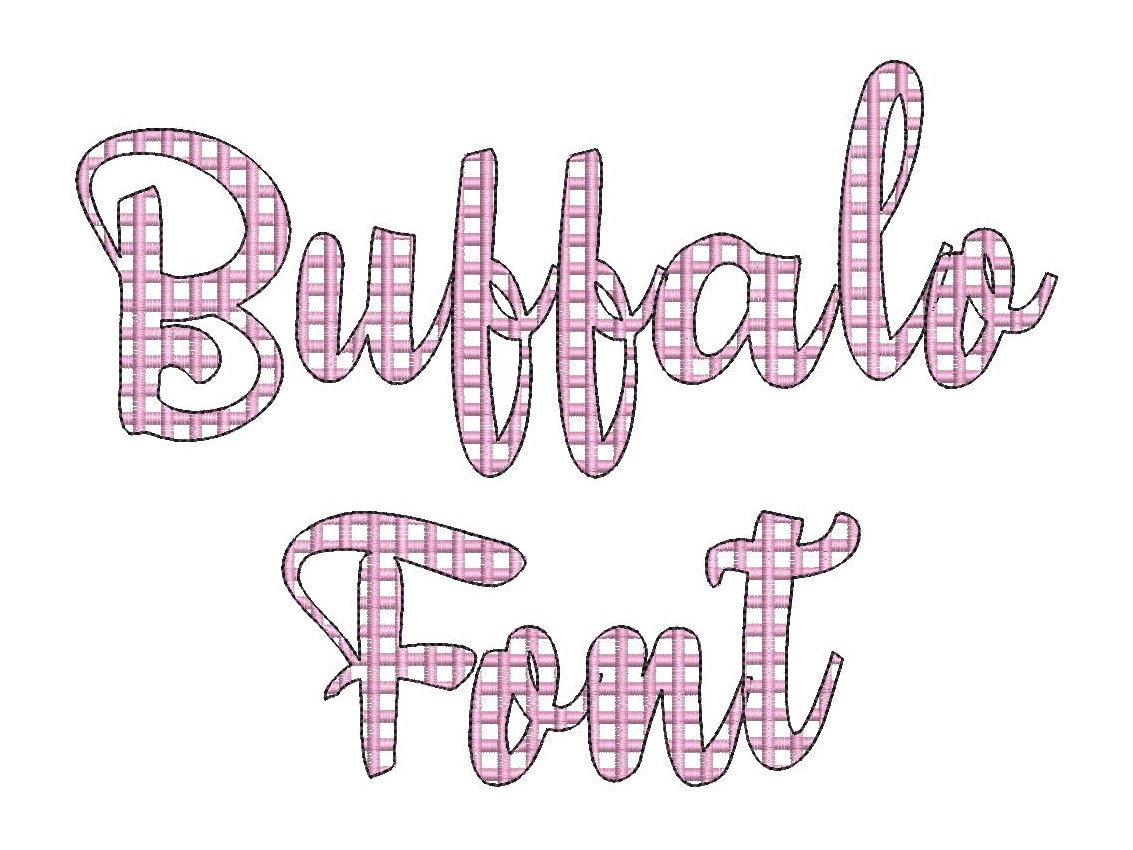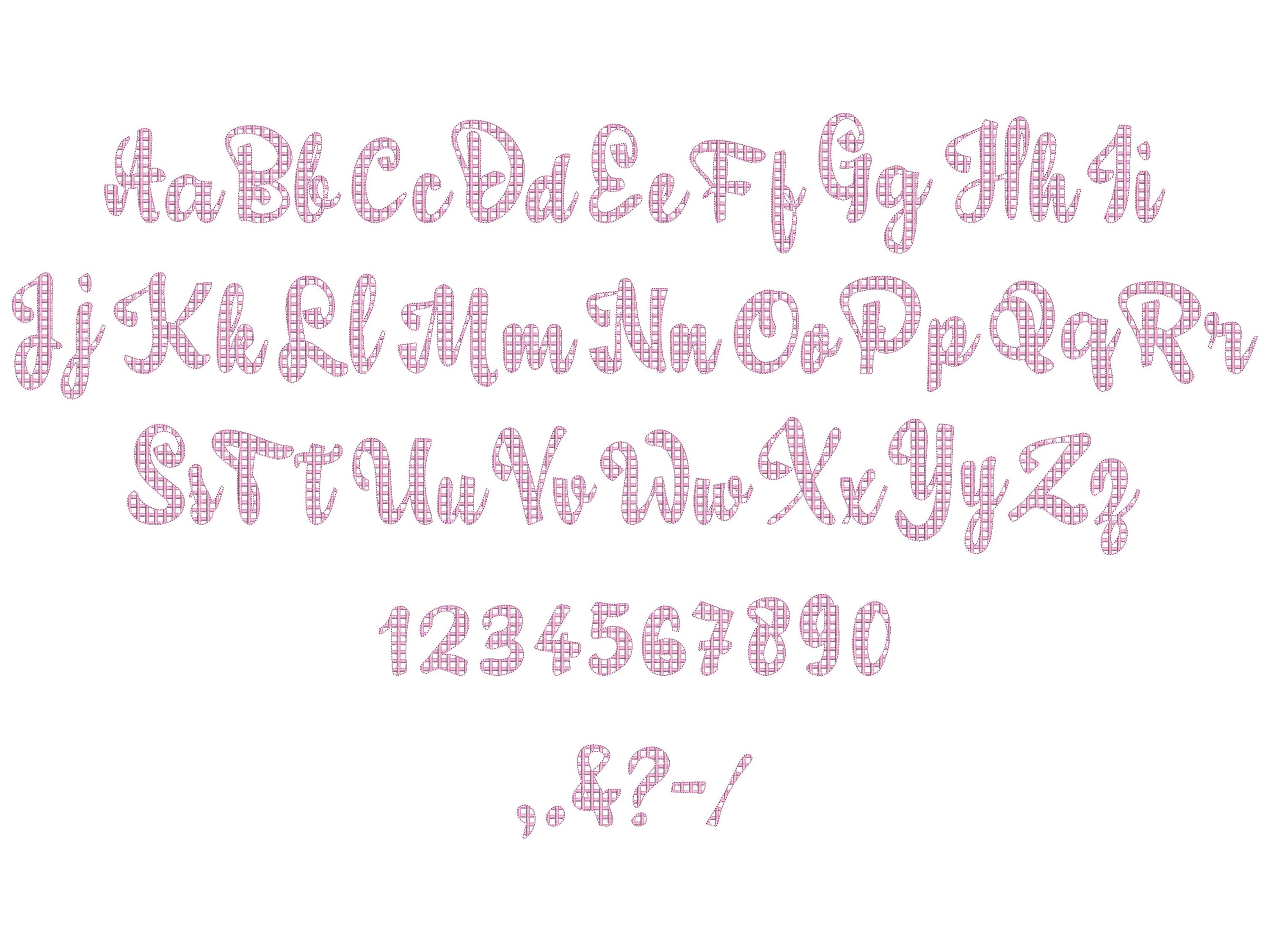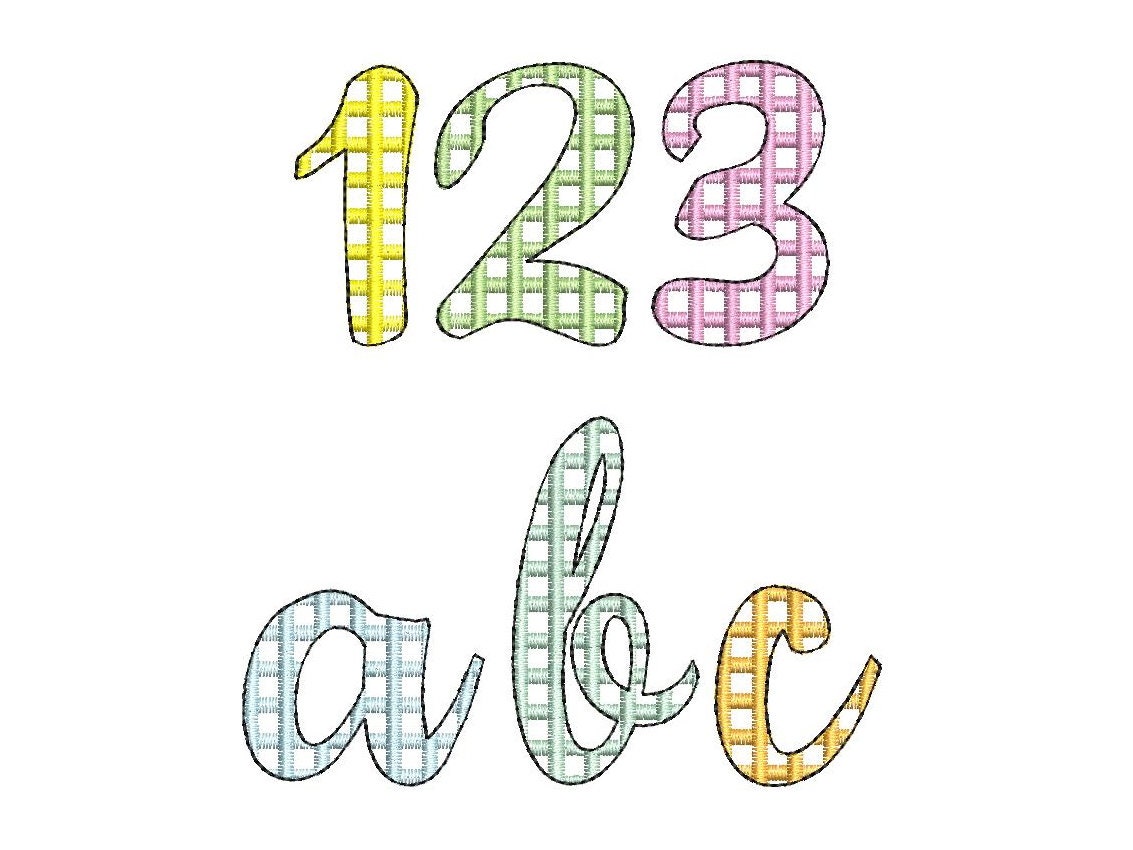
Buffalo Font in checks plaid script alphabet machine embroidery designs in assorted sizes BX, PES, VIP, jef, vp3, xxx, and other formats
The checks are part of the embroidery. It's NOT an applique. The pattern is transparent, and the background fabric looks through. Awesome effect!